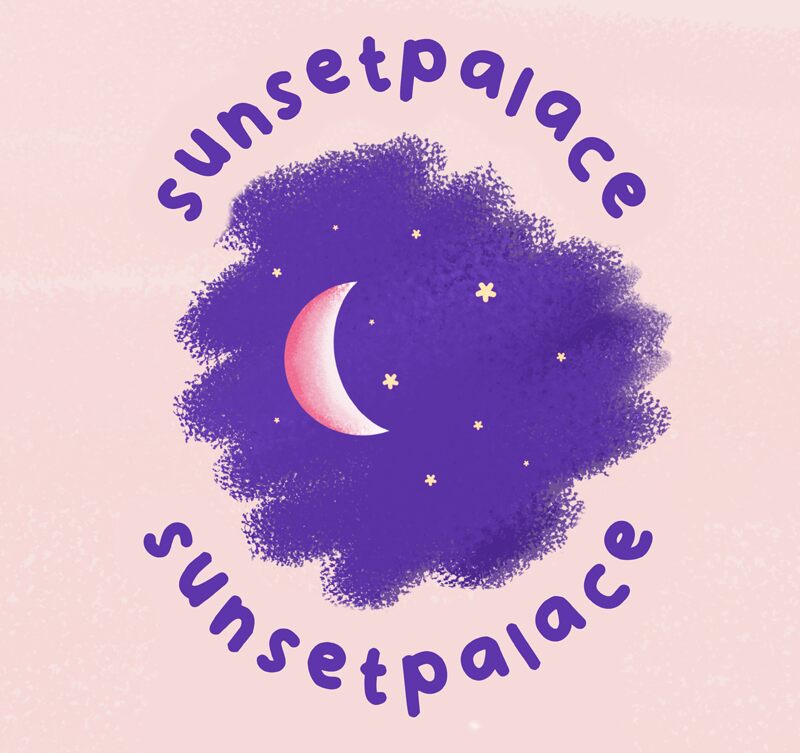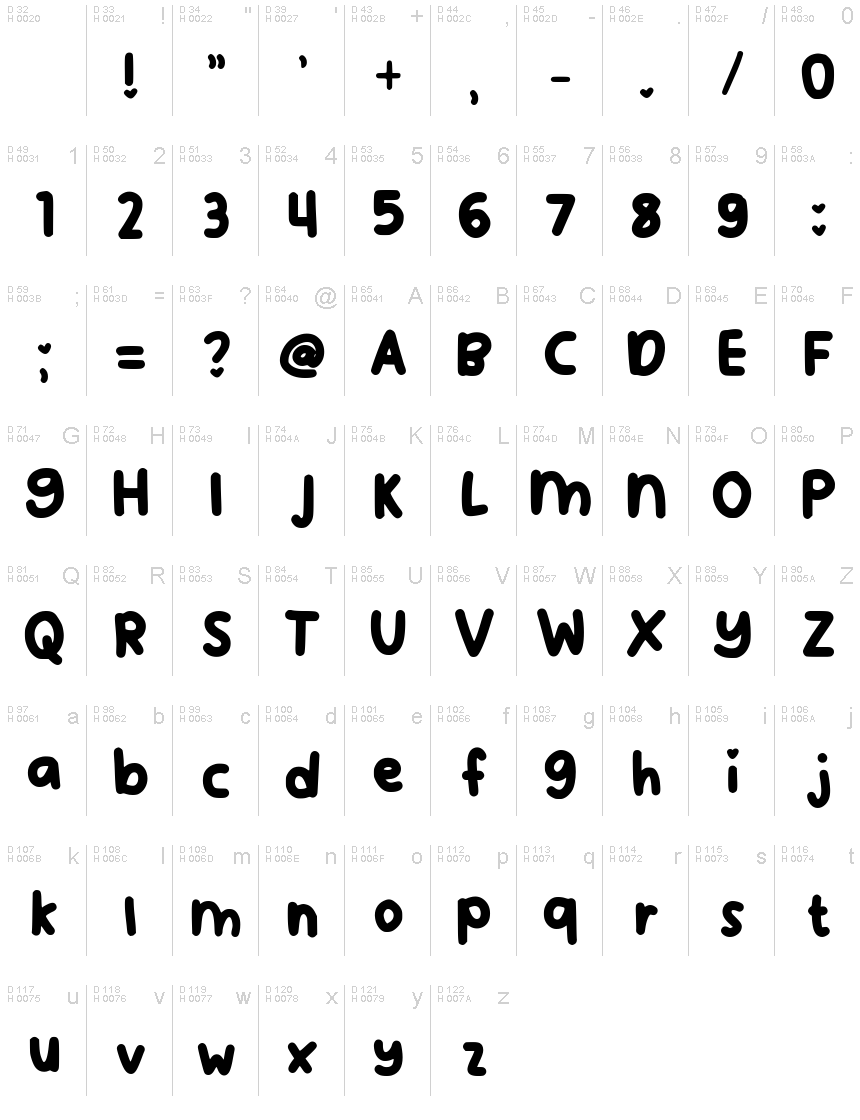
Sunset Palace Regular
Sunset Palace font is a lively handwritten creation by Ovie Sofiani. The bold letters come in an informal style with rounded touch-ups to achieve a friendly and playful script. Sunset Palace was conceived with the freedom of form and strokes in mind, inspired by youthfulness, bright summer colors, and endless happiness.
This free font was designed for all sorts of fun graphics projects from greeting cards to birthday invitations. Use it in posters, several packaging designs suitable for teens like food products, drinks, sweets packages, or others that fit as well.